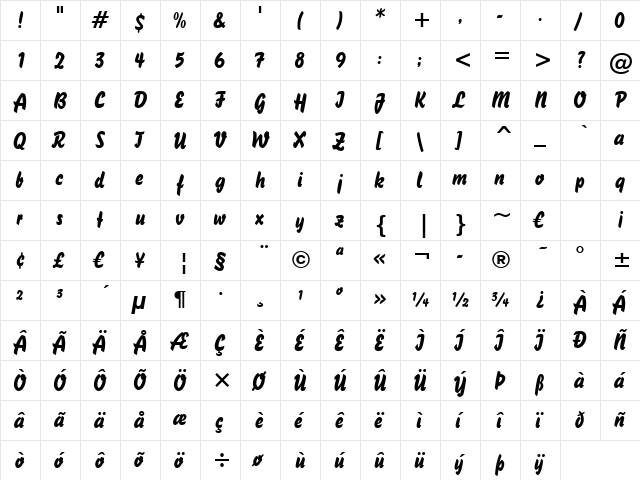
Brush738 BT Regular
Design Context for Brush738 BT Typeface
Brush738 BT brings a calligraphic fluidity to the page — its connecting strokes and expressive curves give it an unmistakably human quality.
Font Pairing: Combine Brush738 BT with a simple geometric sans for maximum contrast — the tension between flowing curves and clean structure is a classic typographic pairing.
Pro Tip: Pair Brush738 BT with a clean sans-serif for supporting text. The contrast between fluid script and geometric structure creates an elegant typographic hierarchy.